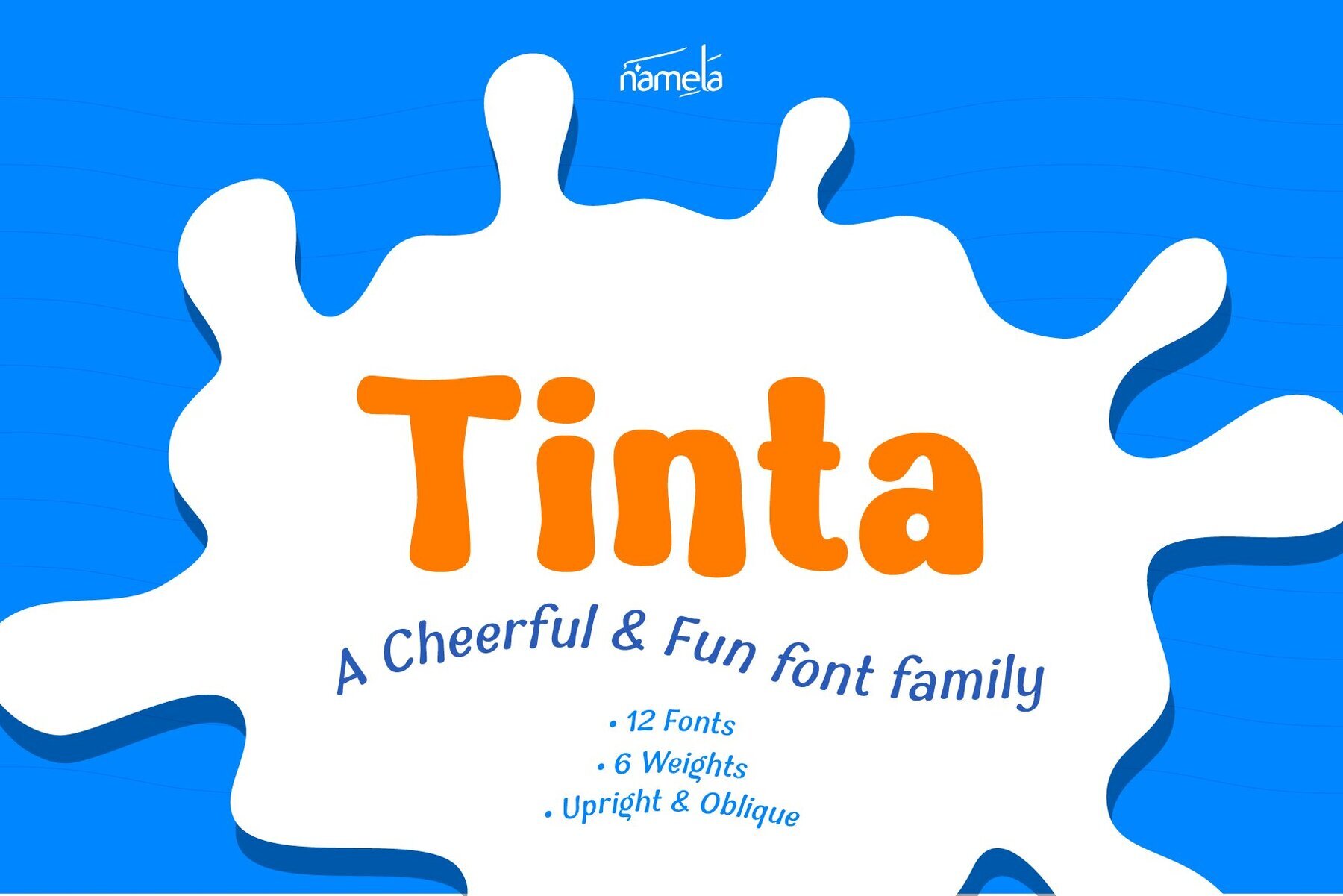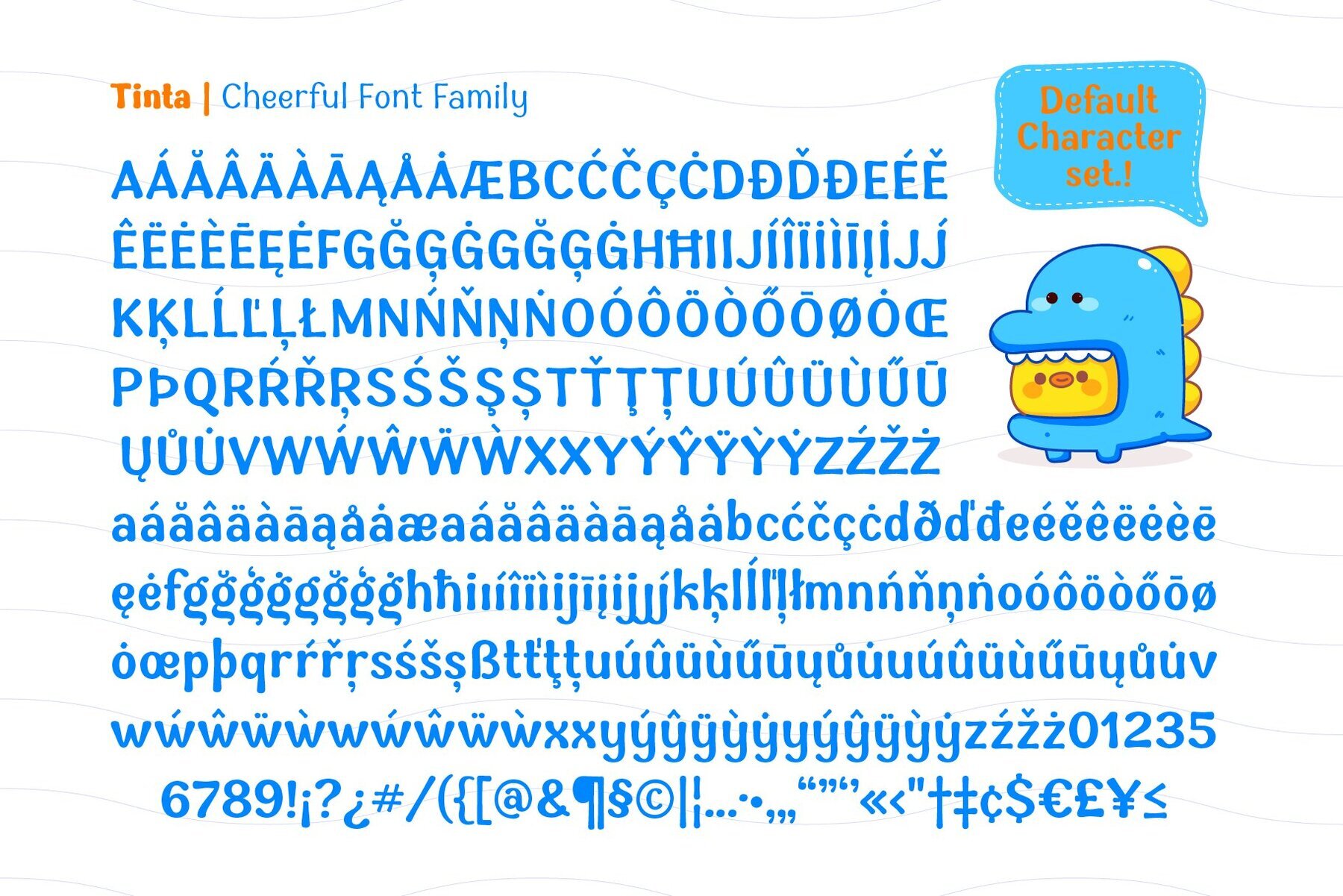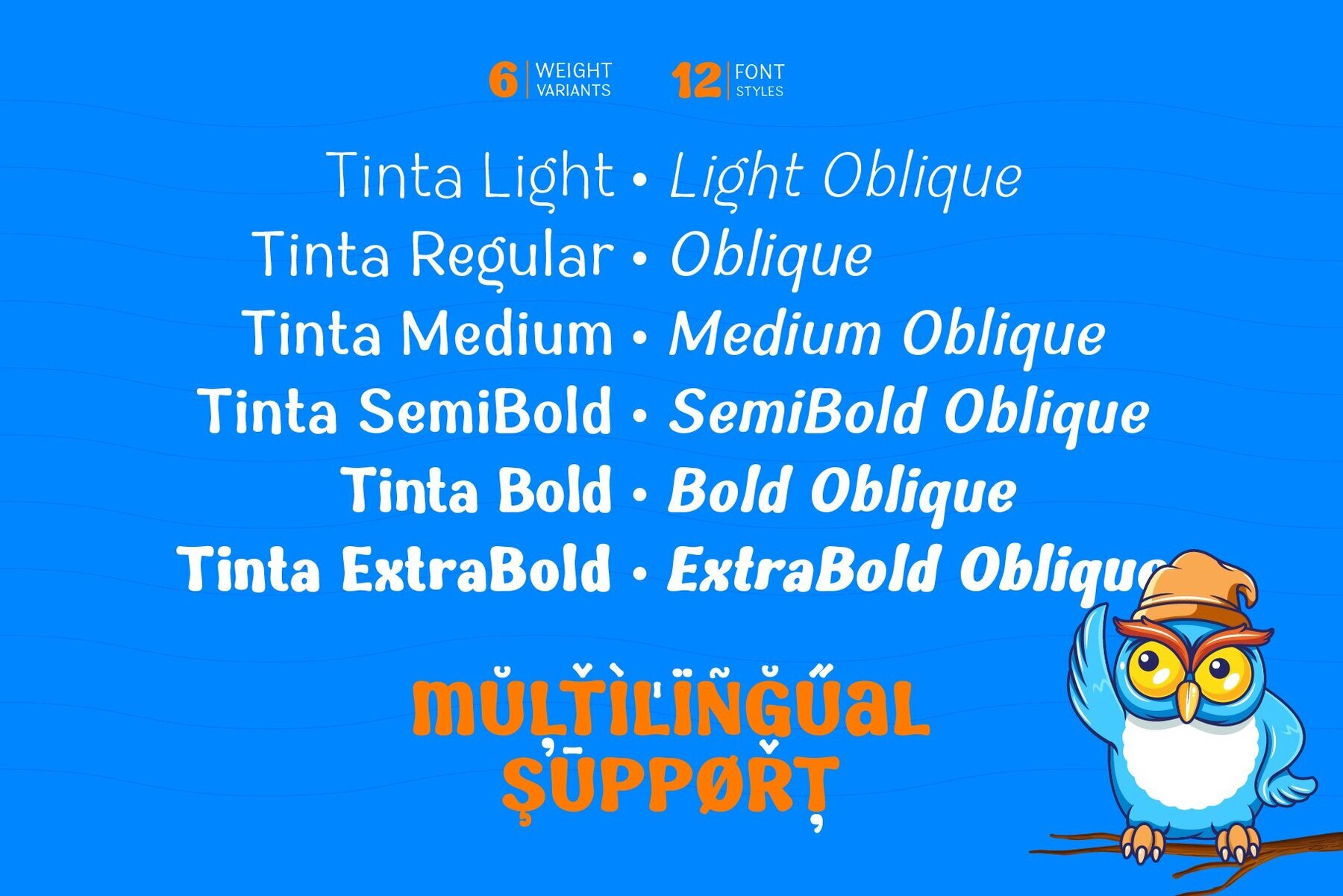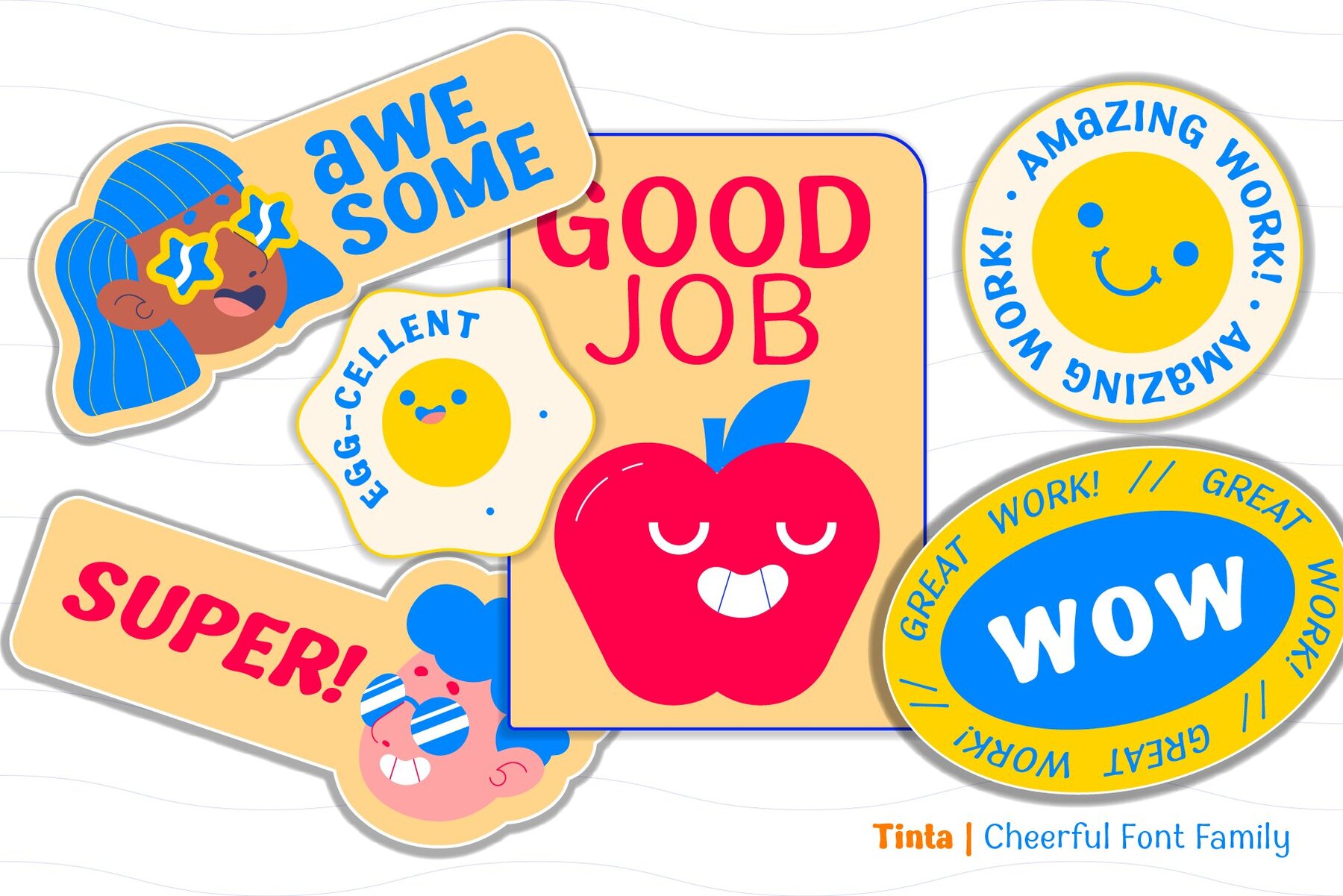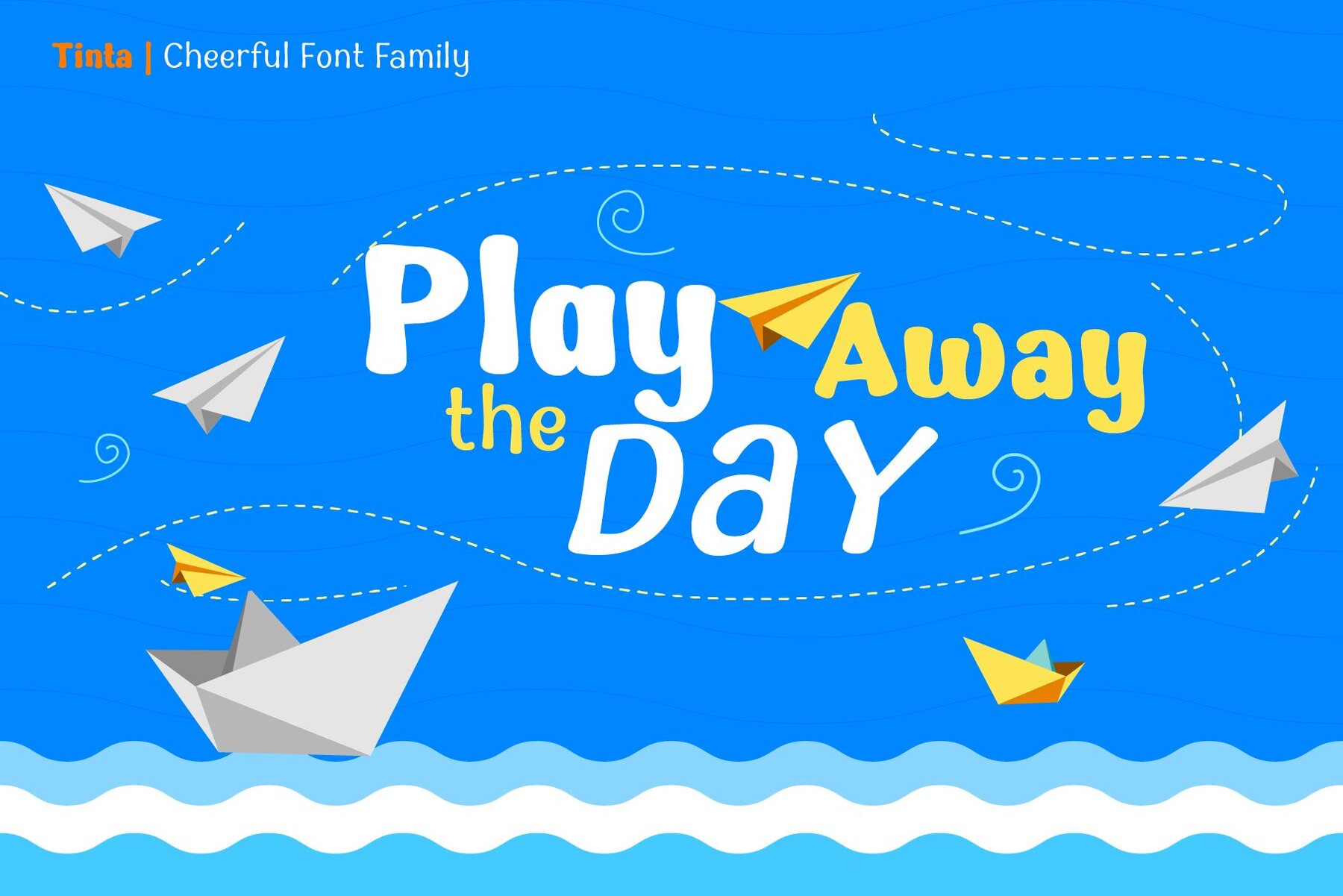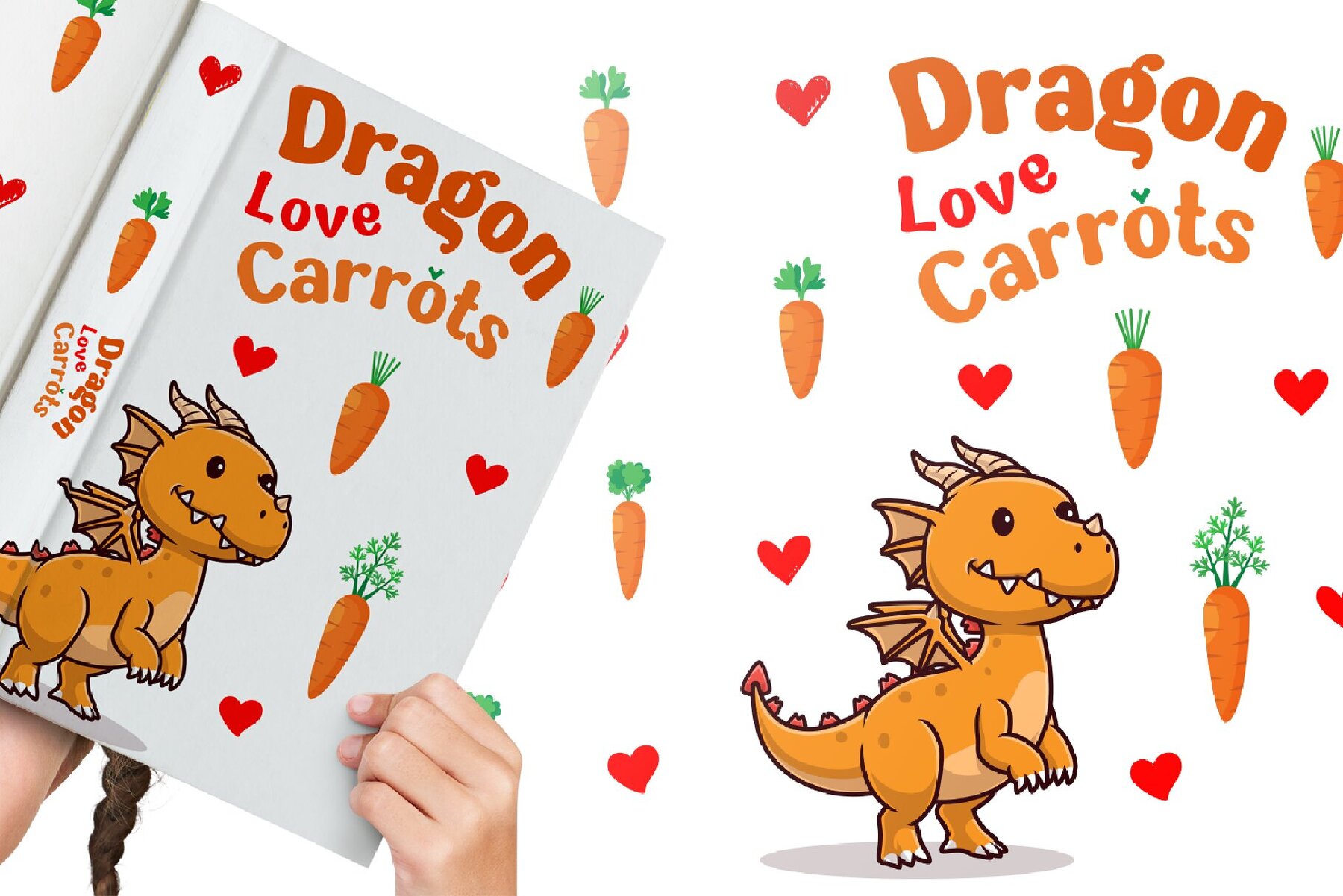
Tinta Font
Tinta Playful Font is a vibrant typeface inspired by the essence of handwritten lettering. True to its name, which means 'ink', every character features a distinct terminal resembling the fluidity of ink. This font is designed to bring a sense of playfulness and creativity to any project. It's versatile, featuring six weight variants ranging from Light to ExtraBold, with corresponding Oblique versions.
Ideal for headlines, branding, packaging, advertising, and more, Tinta is perfect wherever a fun and lively design is desired. The font's dynamic nature makes it an excellent choice for projects seeking a spirited touch. Whether you're working on quotes or promotional materials, Tinta provides a unique and expressive appeal that stands out.